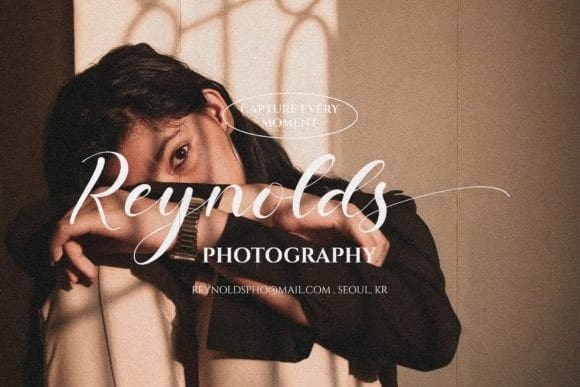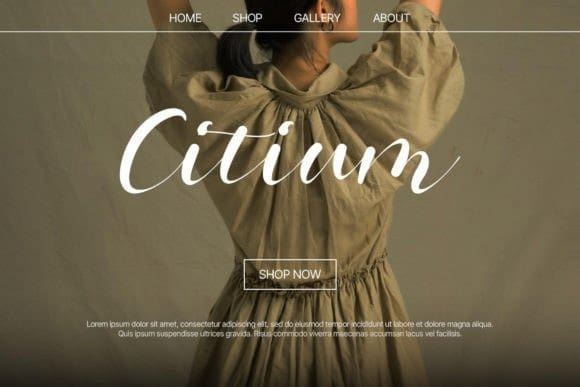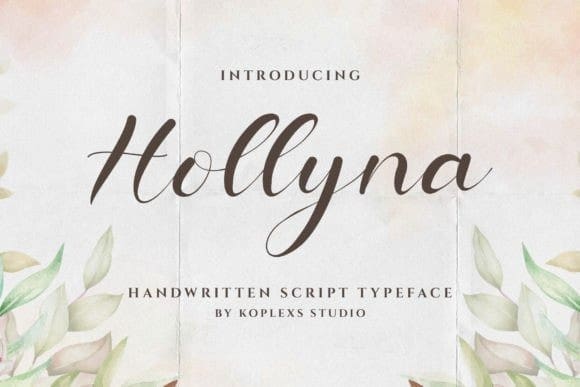
Hollyna Script Font
Hollyna Script Font – where elegance meets creativity in the realm of digital typography. Immerse yourself in the enchanting strokes of this meticulously crafted script font, designed to add a touch of sophistication and charm to your projects.
Hollyna Script Font is more than just a font; it’s an embodiment of graceful strokes and refined curves that seamlessly blend to create a handwritten masterpiece. Elevate your designs with a touch of class that captures attention and leaves a lasting impression.
Unlock a world of creative possibilities as Hollyna effortlessly adapts to a myriad of design projects. Whether you’re crafting invitations, branding materials, social media posts, or even product packaging, this font brings a personalized touch that resonates with both modernity and timeless appeal.
Designed with digital platforms in mind, Hollyna Script Font ensures flawless readability across various devices and screen sizes. Your online presence will exude professionalism and authenticity, establishing a consistent and memorable visual identity.
Let your creativity soar with the diverse range of characters and glyphs Hollyna offers. From stylish ligatures to alternate characters, this font invites you to experiment, customize, and create truly unique designs that reflect your style.
Say goodbye to mundane designs; Hollyna guarantees instant visual impact. Create an emotional connection with your audience through handwritten authenticity, fostering a sense of trust and relatability.